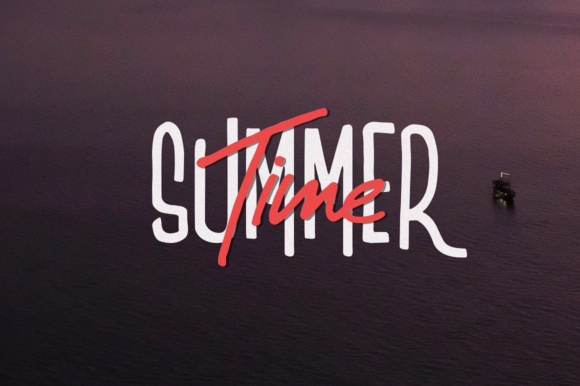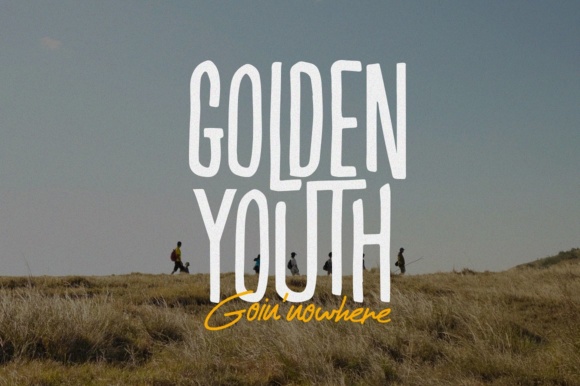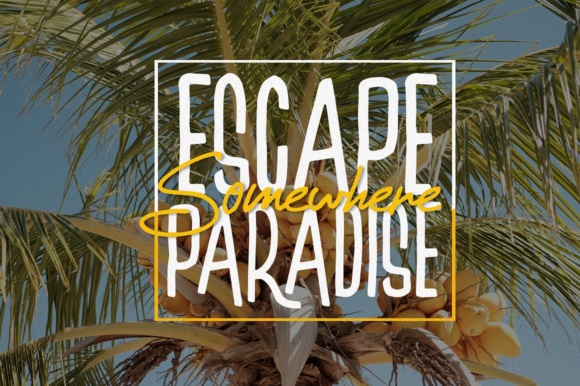
Introduction to Born Losers Font
The Born Losers is a beautiful font duo.
It was designed to help you create the look of a stunning handwriting It comes in a regular and sans version which makes it an unique typeface for all your designs.
Born Losers Font offers exceptional quality and versatility, making it a valuable addition to your design toolkit. Whether you’re creating for personal projects or commercial use, Born Losers Font delivers professional results.